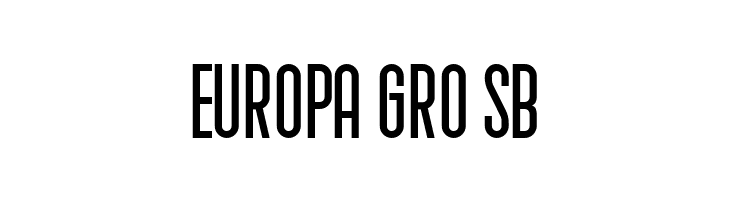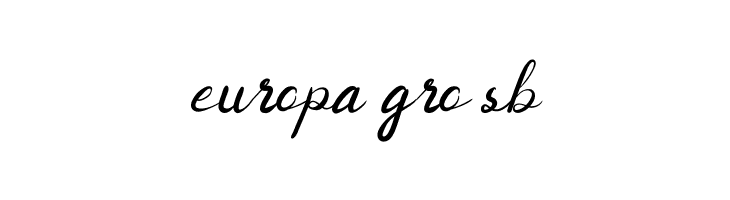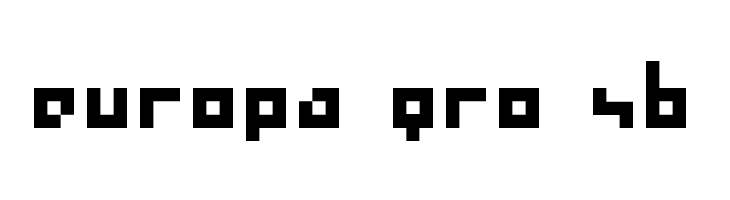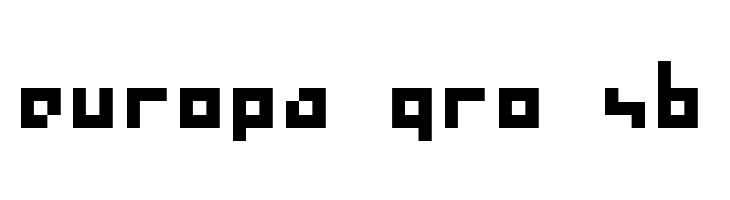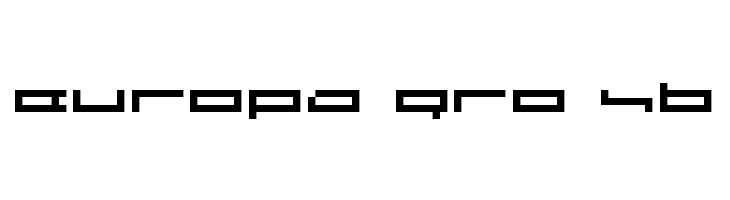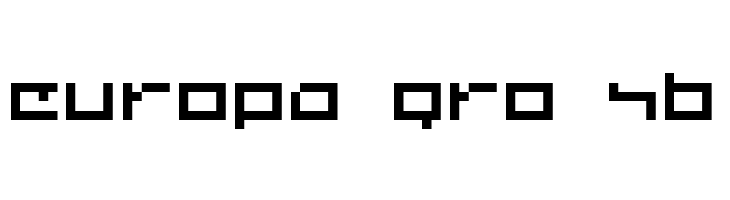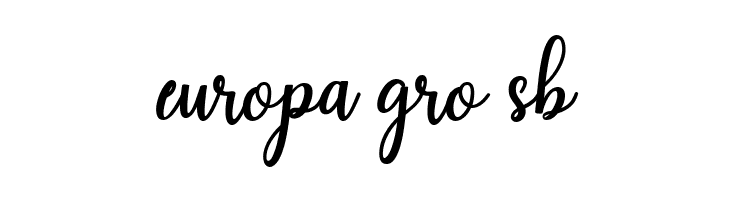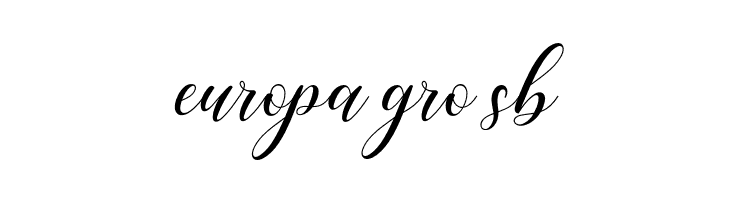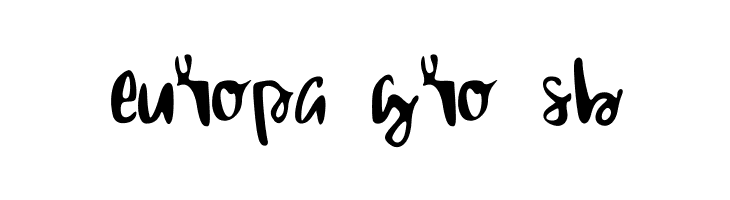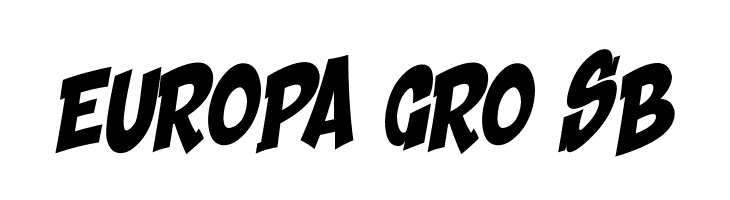
• ShailaScript
A playful and elegant script font with flowing, cursive letterforms.
• Shailena
An elegant script font with flowing, interconnected letters and delicate flourishes.
• Shailena
A sophisticated script font with elegant swashes and flowing cursive letterforms.
• Shailene_Marks
• shailettering
( Fonts by Shailynn Hodgins )
A bold, expressive handwritten font with dynamic strokes and playful curves.
• SHAIMAA DEMO
A modern serif font with tall, slender letterforms and subtle serifs.
• SHAIMAA DEMO Script
A sophisticated script font with elegant, flowing lines and a handwritten style.
• Shaka Pow
A bold, dynamic font with a playful, energetic style.
• Shaka Pow Hollow
A bold, outlined font with a dynamic, comic-like style.
• Shaka Pow Upright
A bold, dynamic font with angular, energetic letterforms ideal for playful designs.
• Shaka Pow Upright Hollow
A bold, playful font with a hollow interior and dynamic style.
• SHAKAGRAPHICS 01
• SHAKAGRAPHICS 02
• SHAKAGRAPHICS 03
• SHAKAGRAPHICS 04
• SHAKAGRAPHICS 05
• SHAKAGRAPHICS 06
• SHAKAGRAPHICS 08
• SHAKAGRAPHICS 09
• SHAKAGRAPHICS 10
• SHAKAGRAPHICS 12
• SHAKAGRAPHICS 14
• Shakaingets-Regular
A modern, geometric font with bold lines and rounded edges, perfect for creative projects.
• shake it off